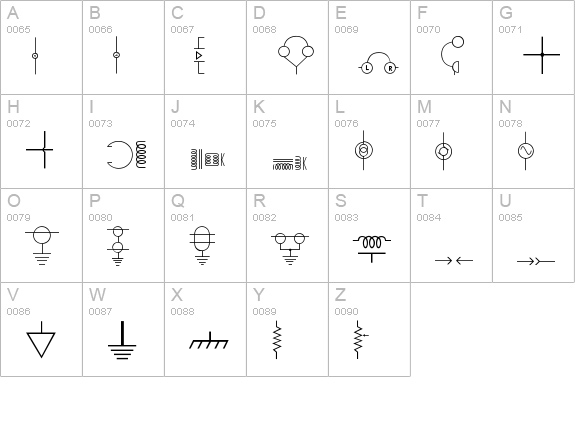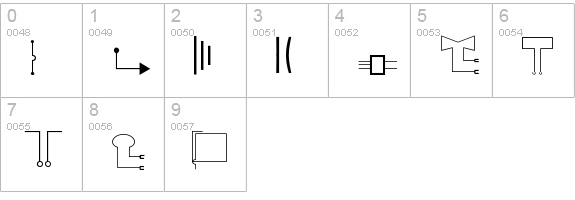
Introducing Circuit Board font - a sleek and futuristic typeface that perfectly captures the essence of modern technology and digital innovation. This unique font is inspired by the intricate patterns and pathways found on electronic circuit boards, giving it a distinct and cutting-edge look. Circuit Board font is ideal for projects that require a high-tech and contemporary aesthetic, such as tech websites, computer games, sci-fi designs, and more. Its sharp lines and geometric shapes make it stand out, while its versatility allows for both headline and body text use. Best of all, Circuit Board font is completely free to download at FontsMarket.com, making it accessible to designers and creators looking to add a touch of digital flair to their work. Don't miss out on this opportunity to enhance your projects with the futuristic charm of Circuit Board font. Download it today and take your designs to the next level!